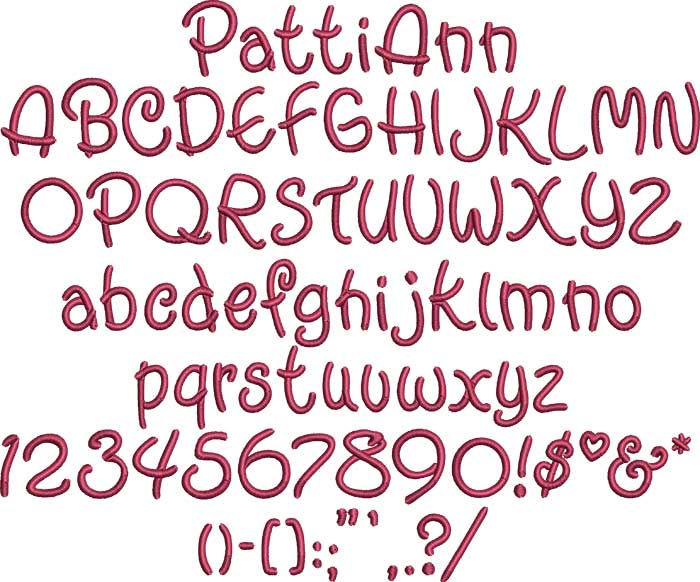
BX Embroidery Font: PattiAnn
BX Embroidery Font: PattiAnn Font Bundle (4 sizes) is a casual, handwritten machine embroidery font that includes A-Z, a-z, 0-9 and punctuation; 4 sizes.
BX Embroidery Font: PattiAnn is a casual, handwritten machine embroidery font that includes A-Z, a-z, 0-9 and the following punctuation: !$&*()-[]:;”‘<>,.?/ (81 total characters).
It includes the following sizes:13mm (~1/2″) satin, 25mm (~1″) satin, 50mm (~2″) satin, 75mm (~3″) fill.
Each character in this alphabet is individually manually digitized; we do not use a TrueType to Stitches conversion utility to create our fonts. Additionally, stitch attributes such as stitch type, density, compensation, and underlay are optimized for each size available. Choose the size closest to what you need. Shrinking the smallest size is not recommended.